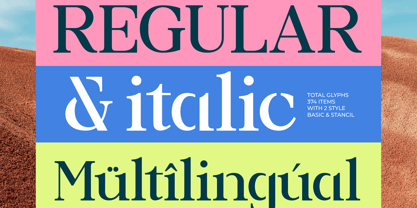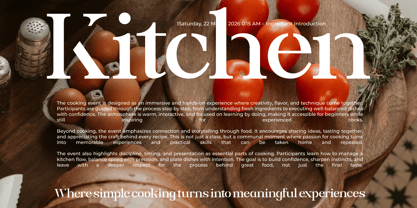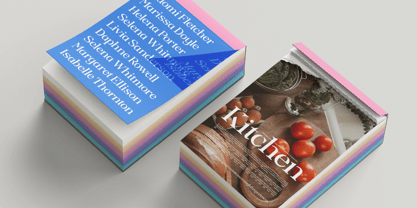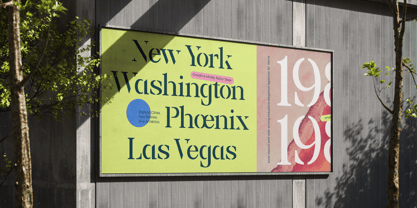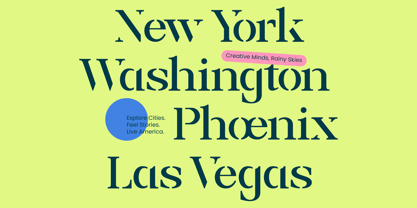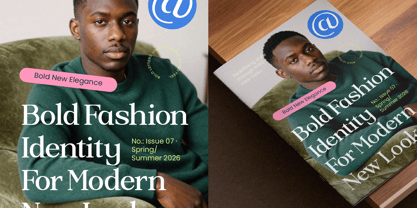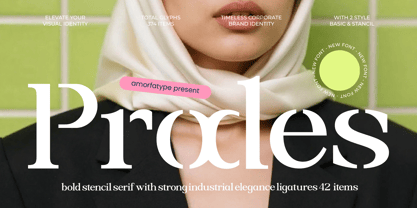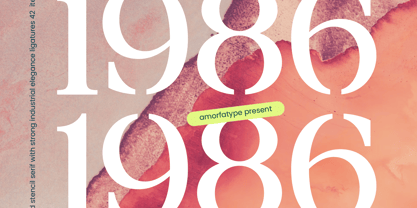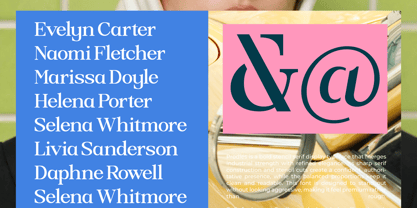
Prodes
La familia tipográfica Prodes fue diseñada por Shiddiq Roihan y publicada por Amorfa Type. Prodes contiene 4 estilos y opciones de paquete familiar. Más información sobre esta familia
Prodes is a bold stencil serif display font built with strong industrial character, solid construction, and refined elegance. Designed to feel powerful and authoritative, Prodes combines classic serif foundations with sharp stencil cuts, creating a distinctive look that feels both modern and timeless. This font is ideal for branding, posters, editorial headlines, packaging, signage, and designs that demand strength and clarity. Bold Stencil Display & Impact-Driven – Perfect for logos, headlines, posters, and statement typography Industrial Elegance – Sharp stencil cuts balanced with refined serif forms Strong Serif Structure – Heavy strokes and clear letterforms for confident visual presence Optimized for Print & Digital – Maintains strength, contrast, and legibility across all media